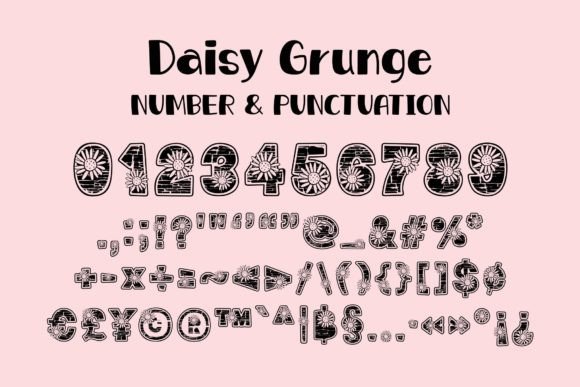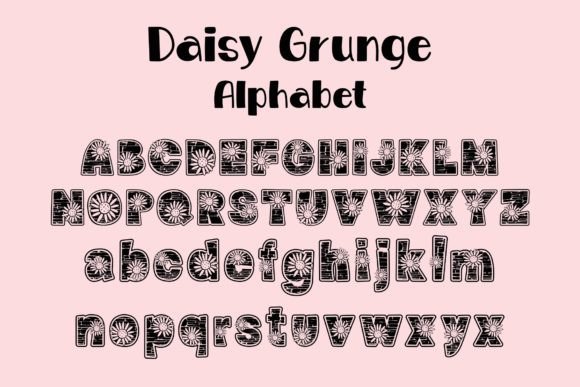
Unleash Your Creativity with the Daisy Grunge Font
Have you ever stared at a blank canvas, wondering where to start? That’s exactly where I was when I discovered the perfect companion for my creative projects – the Daisy Grunge Font. This charming duo font is a game-changer for designers, offering the perfect blend of cuteness and coolness.
Whether you’re designing a logo, branding materials, or social media graphics, the Daisy Grunge Font is an absolute must-have. Its decorative and display styles make it the perfect fit for crafty DIY projects, blog posts, and even wedding invitations. With its versatility and charm, this font is sure to elevate your designs and leave a lasting impression.
As a designer, you know how hard it can be to find the perfect font to match your vision. That’s why the Daisy Grunge Font is such a valuable addition to your toolkit. It’s the perfect combination of style, elegance, and whimsy, making it a go-to choice for designers of all levels.
Daisy Grunge Font Key Features
- Unique Characteristics: Distressed, grungy texture with a vintage feel, perfect for creating a retro or bohemian design aesthetic
- Character Set: Includes uppercase and lowercase letters, numbers, punctuation, and special characters
- Style Variations: Includes regular, bold, and italic styles for added flexibility
Daisy Grunge Font Review
I recently had the chance to work with the Daisy Grunge Font, and I must say it’s a unique and intriguing addition to any design project. ✨ One of the things that stands out to me is its ability to add a touch of organic, handcrafted charm to text-based elements. The distressed texture and irregular letterforms create a sense of personality that’s hard to replicate with more traditional fonts.
That being said, there are some limitations to keep in mind. ⚠️ For one, the font may be a bit too busy or overwhelming for certain projects, especially if you’re working with a lot of text. Additionally, the distressed texture can sometimes make it difficult to read, particularly in smaller sizes. It’s also worth noting that the font may not be as versatile as some other options, and it may not be the best choice for projects that require a lot of precision or technical expertise.
- Unique, handcrafted feel
- Organic, distressed texture
- Irregular letterforms add personality
- Not suitable for projects requiring precision or technical expertise
- May be too busy or overwhelming for certain projects
Overall, I think the Daisy Grunge Font is a great choice for designers looking to add a touch of personality and whimsy to their projects. While it may have some limitations, its unique charm and versatility make it a great addition to any design library. With a bit of creativity and restraint, you can use this font to create truly unique and memorable designs.
For the best results, pair the Daisy Grunge font with a clean and simple background to let the font take center stage.
1. Music festival or concert posters.
2. Grunge-inspired art or design projects.
3. Social media graphics or promotional materials.